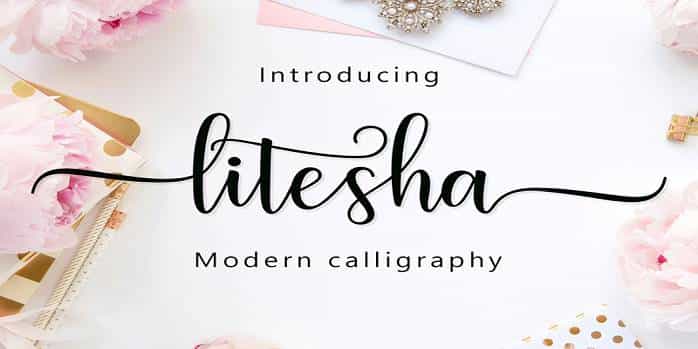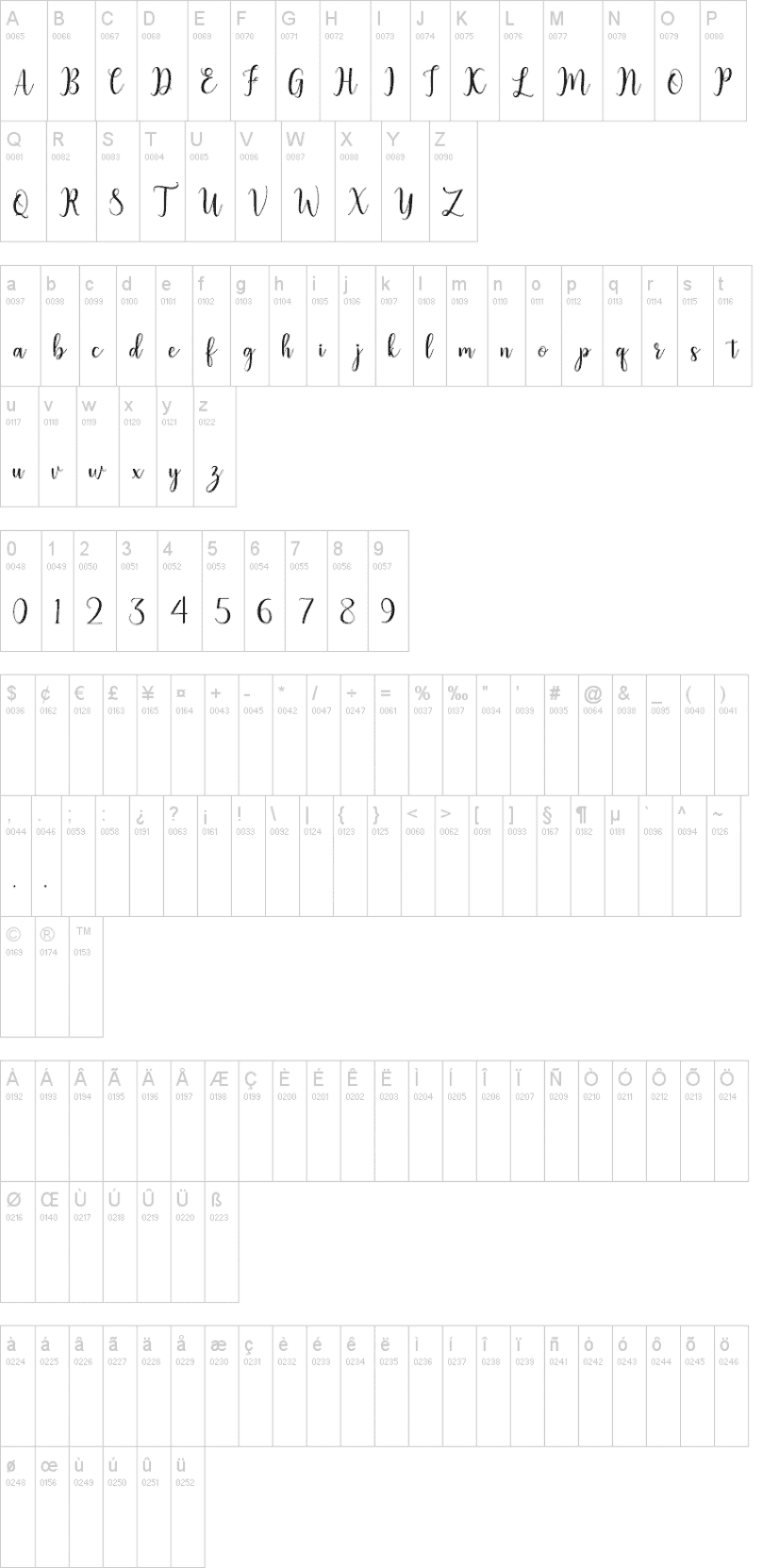
Litesha is a high quality Calligraphy font which is designed by Amar Lettering and is free to download and use for personal use. The free version contains all the uppercase and lowercase letters and a couple of special characters as well.